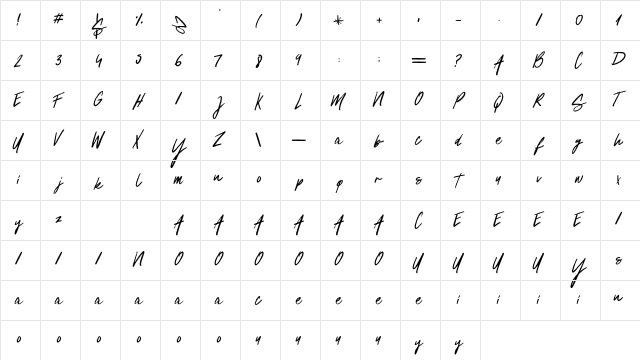
Springs Regular Font Preview
Springs Regular
Springs Regular Font Details
Design Context for Springs Typeface
Springs is a composed and adaptable typeface that performs quietly and consistently across a wide range of design contexts.